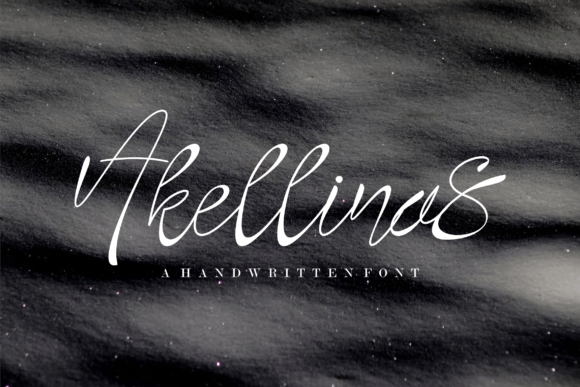
The Hunt for the Perfect Font: How Akellinas Stole My Heart
I’ll never forget the struggle I faced while working on a wedding invitation project. My client wanted a font that exuded elegance, sophistication, and a touch of modernity. I scoured the internet, tried countless fonts, but nothing seemed to fit the bill. That was until I stumbled upon Akellinas – a beautiful Script & Handwritten font that instantly captured my attention.
Akellinas: A Comprehensive Review
What I Love About Akellinas ✨
- 💫 Elegant and Sophisticated: Akellinas boasts a refined, high-end feel that’s perfect for luxury brands, weddings, and formal events.
- ✅ Versatile: This font is incredibly versatile and can be used for a wide range of projects, from signature and stationery to logo design, magazine covers, and website headers.
- 🌈 Modern and Fresh: Akellinas has a modern twist that sets it apart from traditional script fonts, making it perfect for designers looking for something new and exciting.
- 👍 Easy to Read: Despite its elegant nature, Akellinas remains highly legible, even at smaller font sizes.
- ⚠️ Limited Use in Body Text: While Akellinas excels in headlines and titles, it may not be the best choice for lengthy body text due to its script nature.
- 🤔 Requires Attention to Kerning: As with many script fonts, Akellinas requires careful attention to kerning to ensure optimal readability and aesthetics.
- Take advantage of OpenType features, such as glyphs and stylistic alternates, to add variety and interest to your text.
The Story Behind Akellinas
Akellinas was designed with the intention of creating a font that embodies elegance, sophistication, and modernity. Inspired by classic script fonts, Akellinas brings a fresh and refined feel to the world of typography.
Q: What type of projects is Akellinas best suited for?
Akellinas is perfect for a wide range of projects, including signature and stationery, logo design, wedding invitations, magazine covers, website headers, and more.
Q: Does Akellinas support OpenType features?
Yes, Akellinas supports OpenType features, including glyphs and stylistic alternates, allowing for greater flexibility and creativity in your designs.